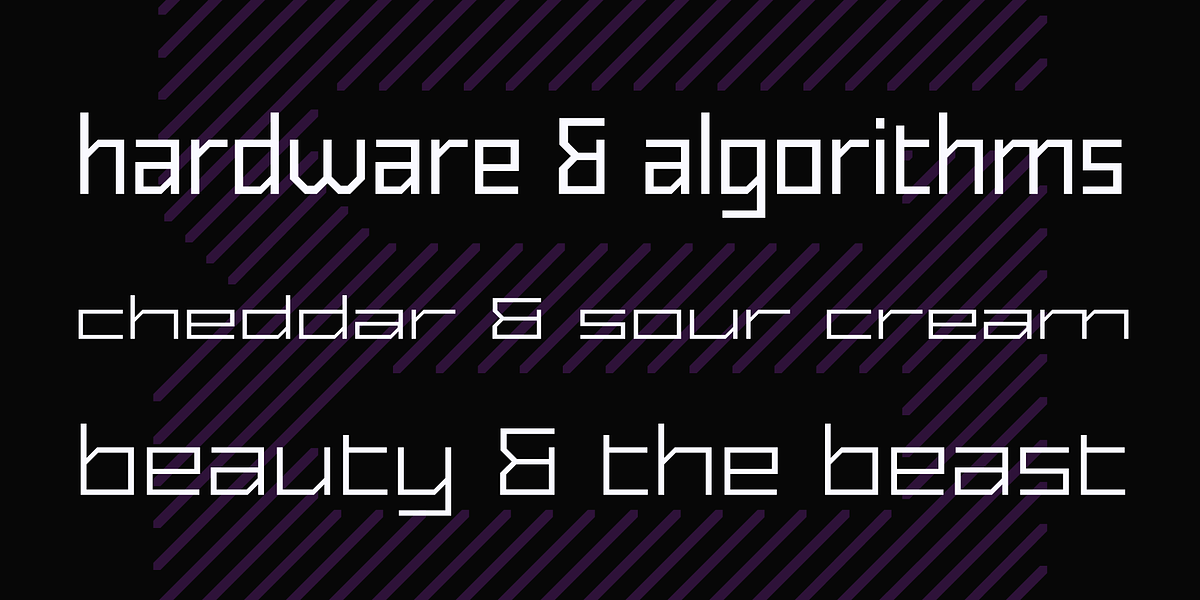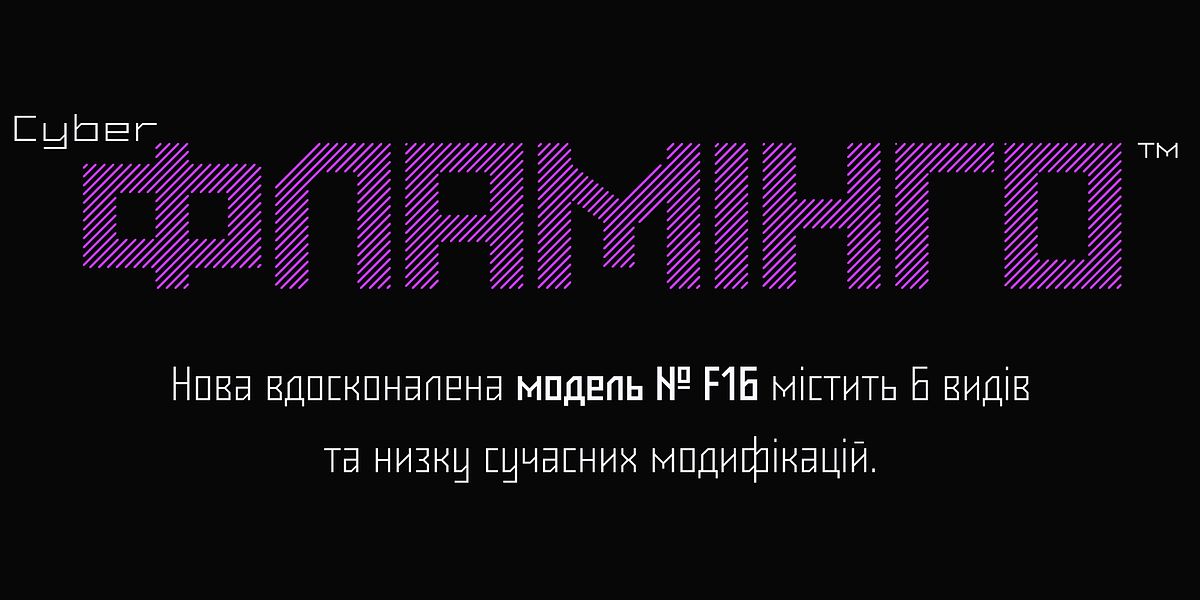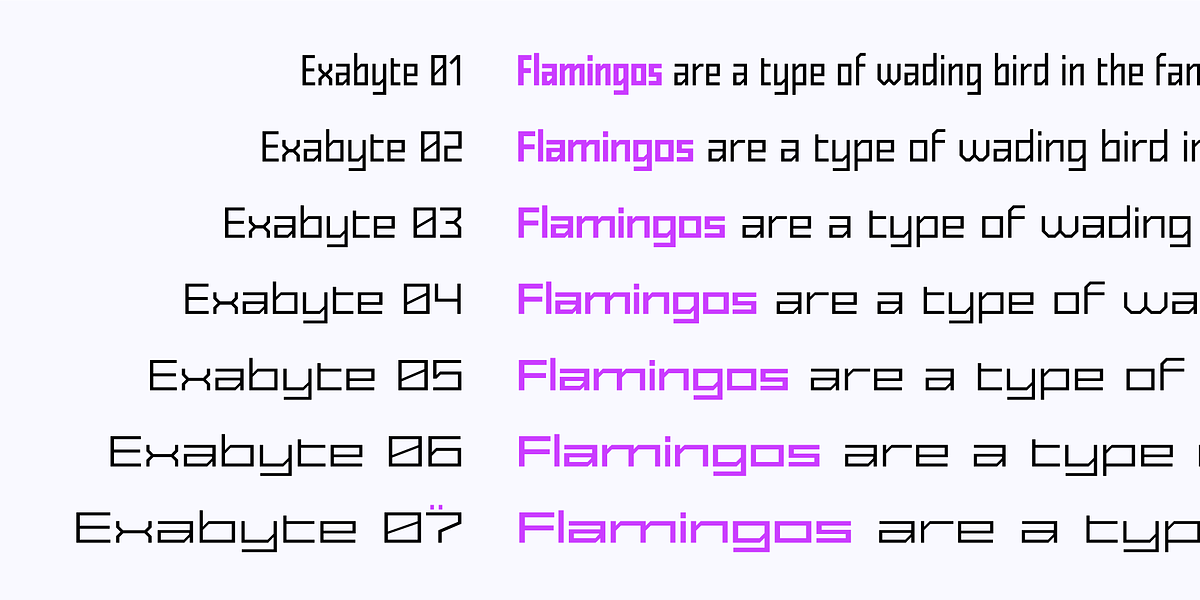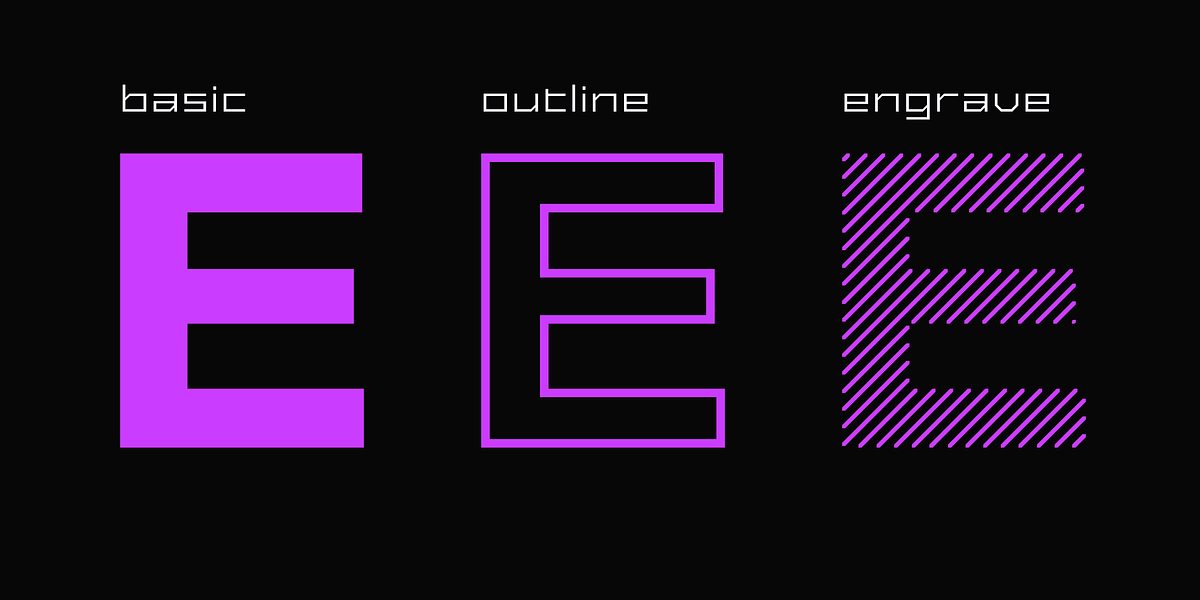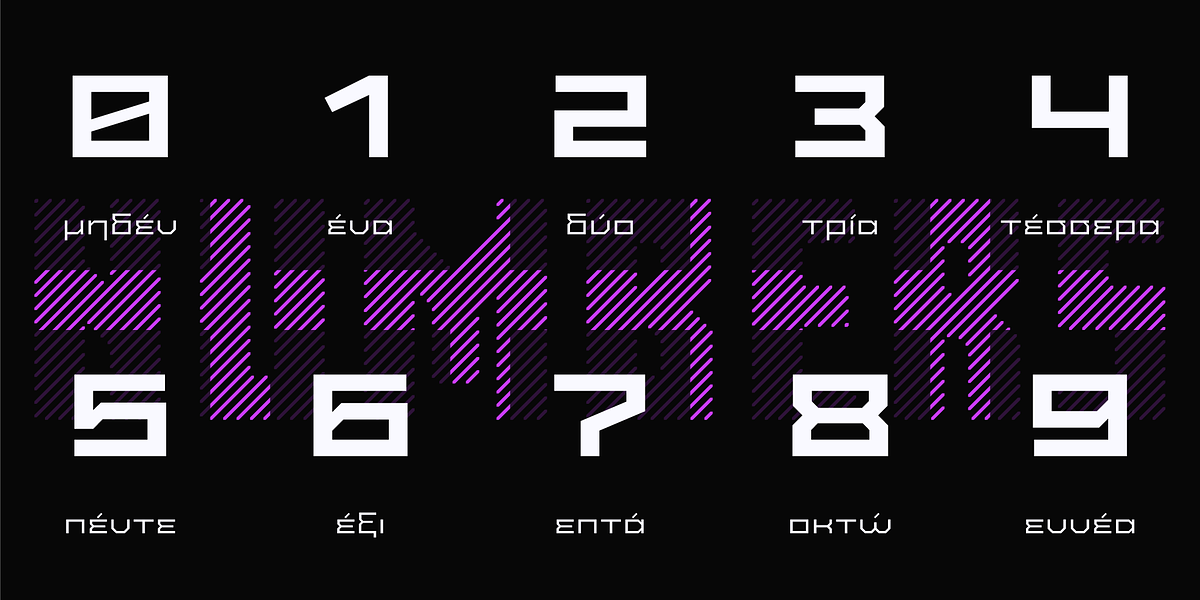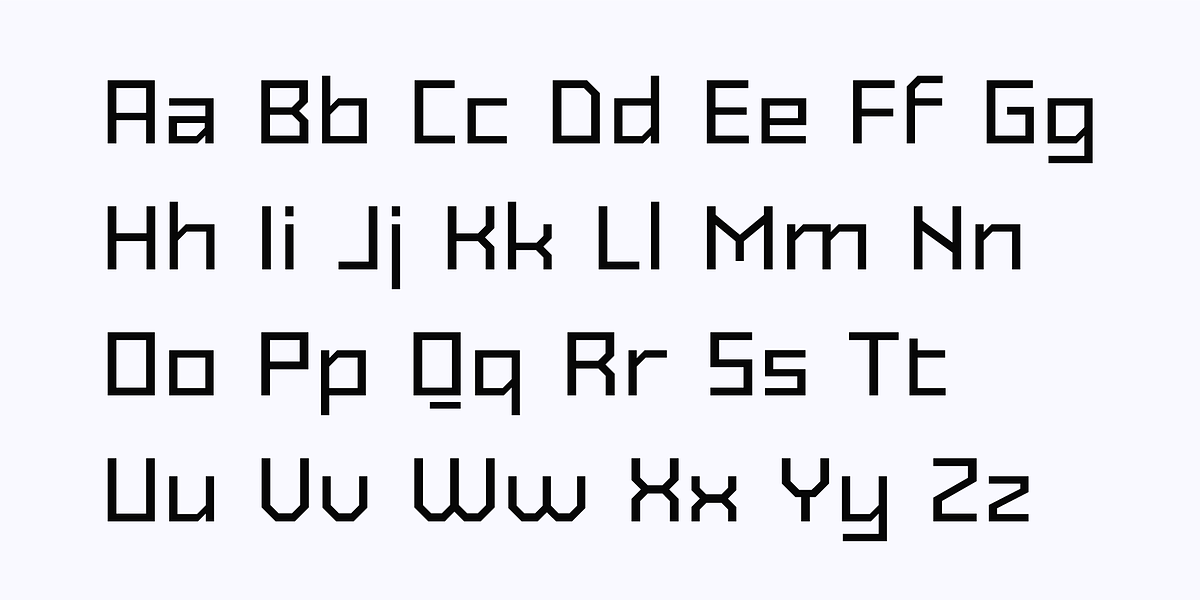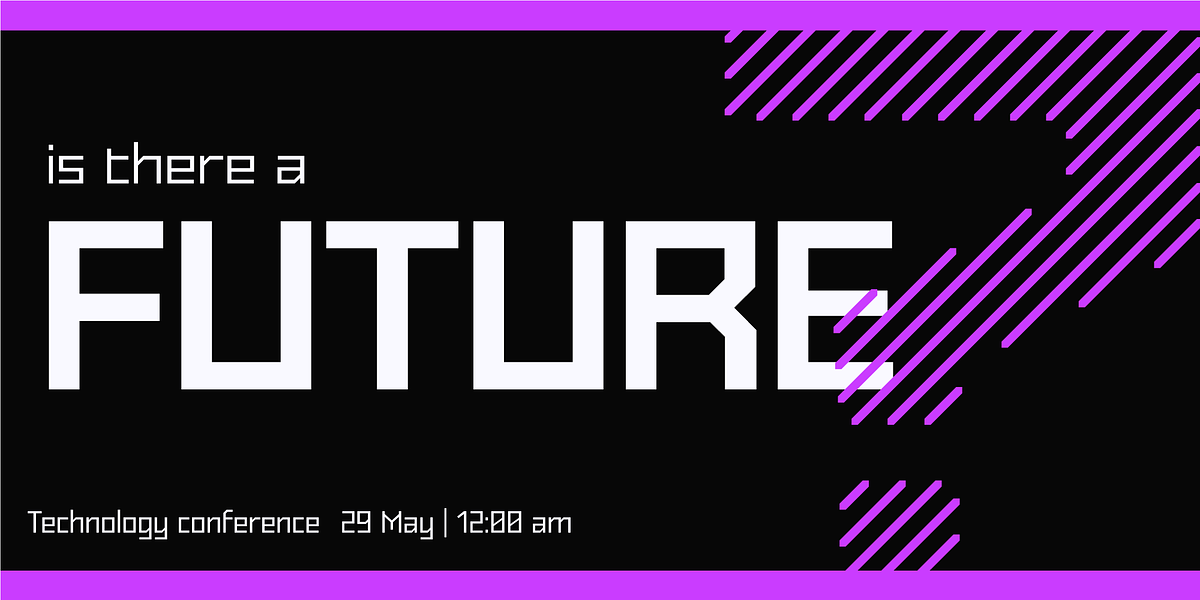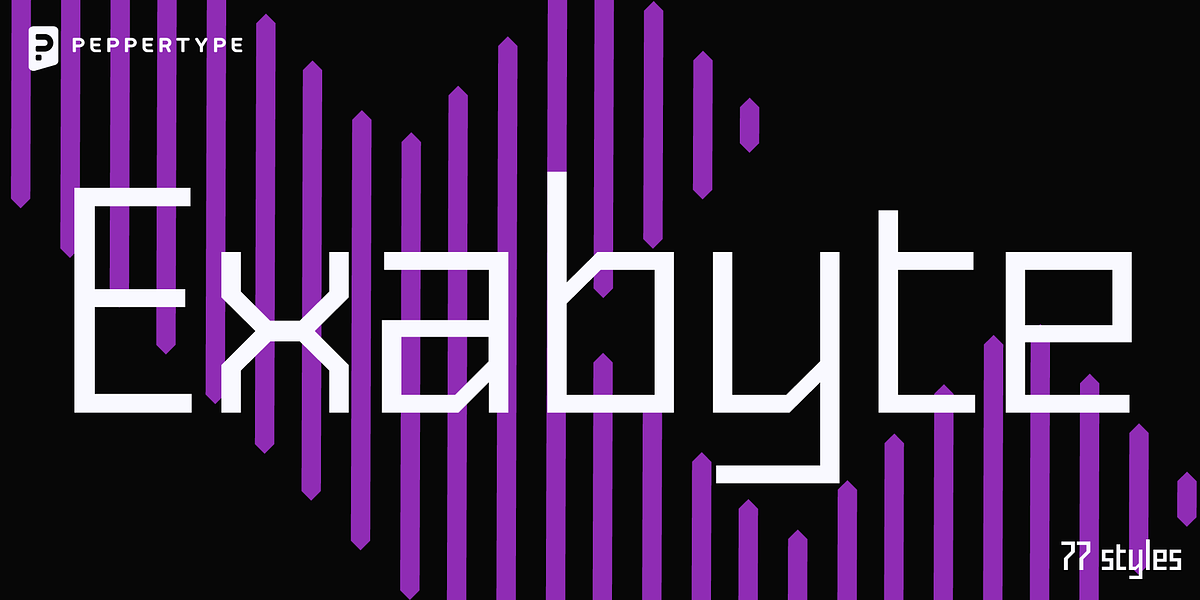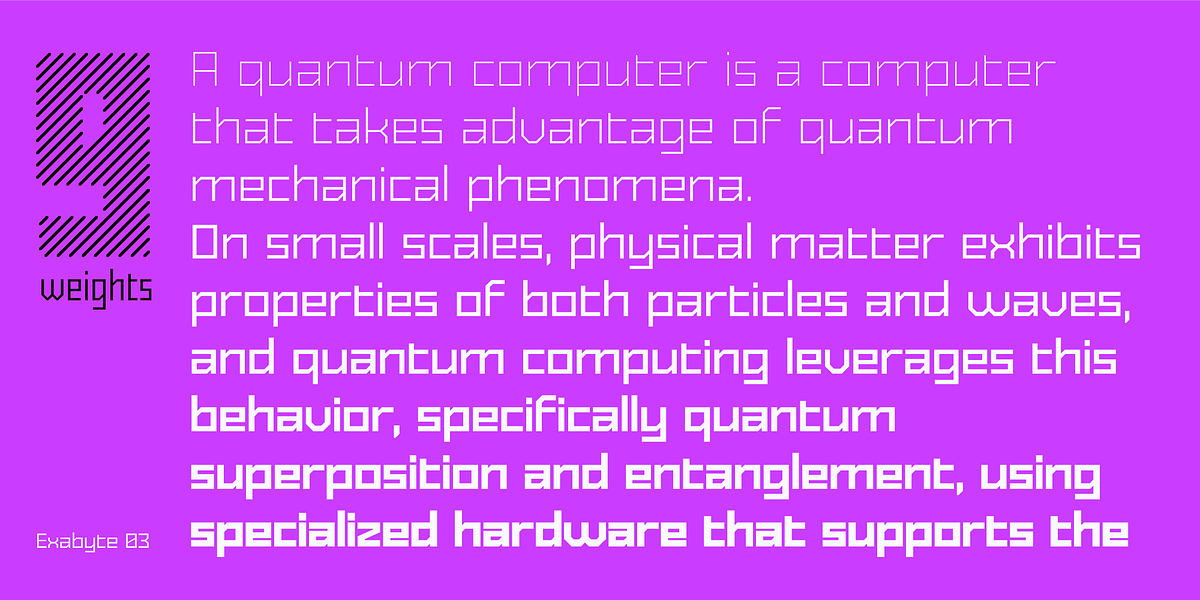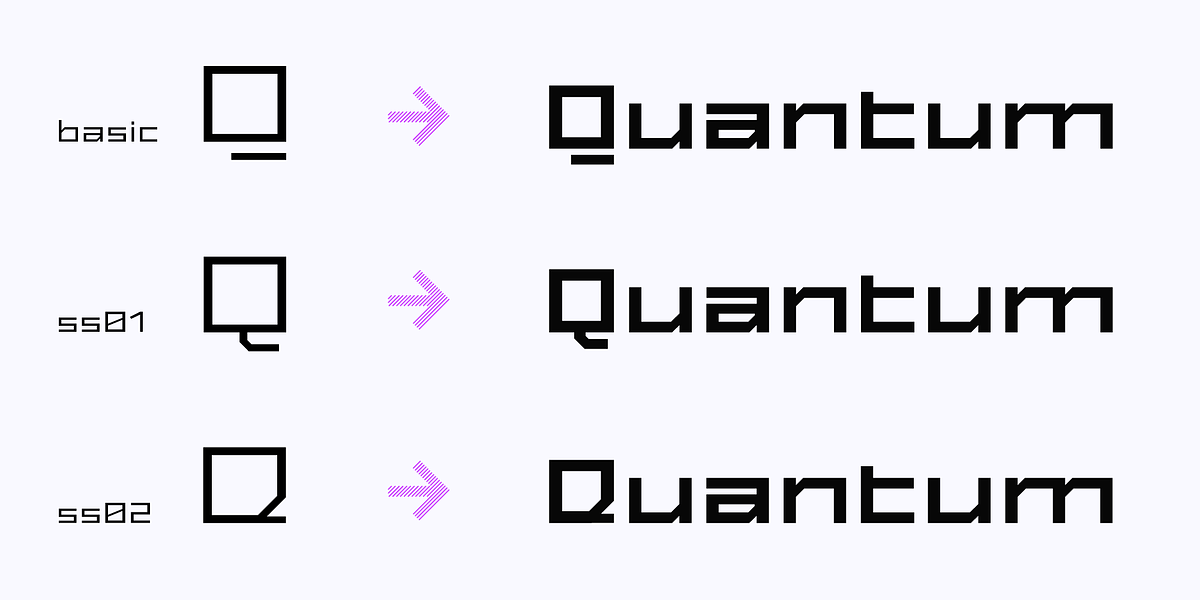
Exabyte
Exabyte is a geometric sans-serif font designed for display purposes. It features 9 weights ranging from thin to bold and 7 widths, providing a high degree of versatility. The font's modular construction, characterized by its prevalence of 90-degree angles, gives it a clean and modern aesthetic.